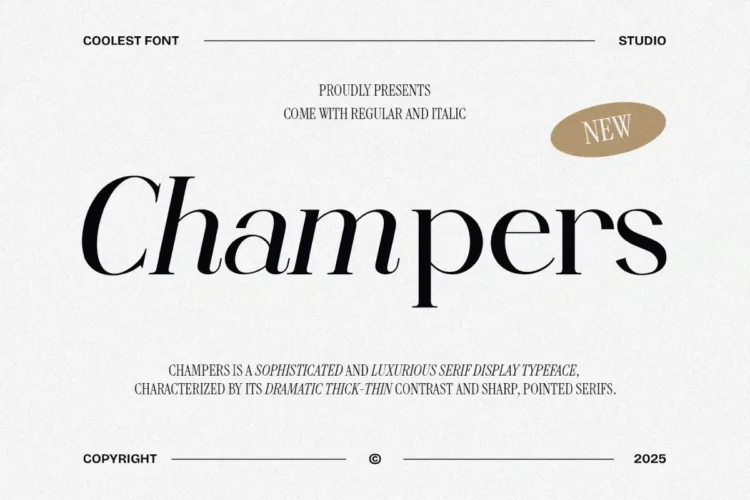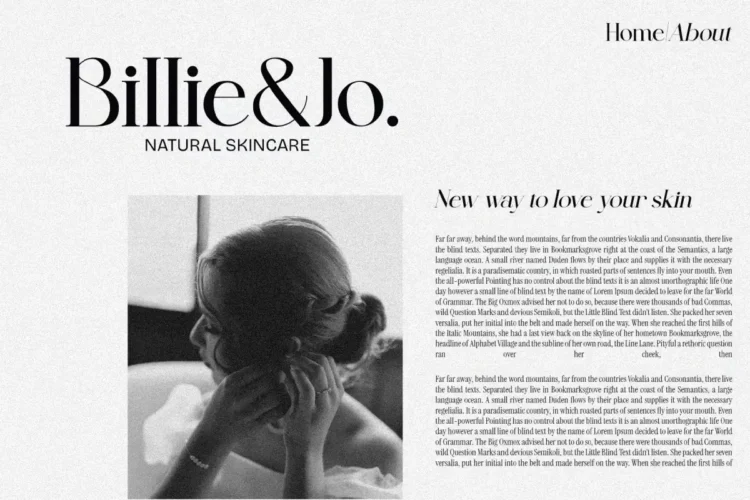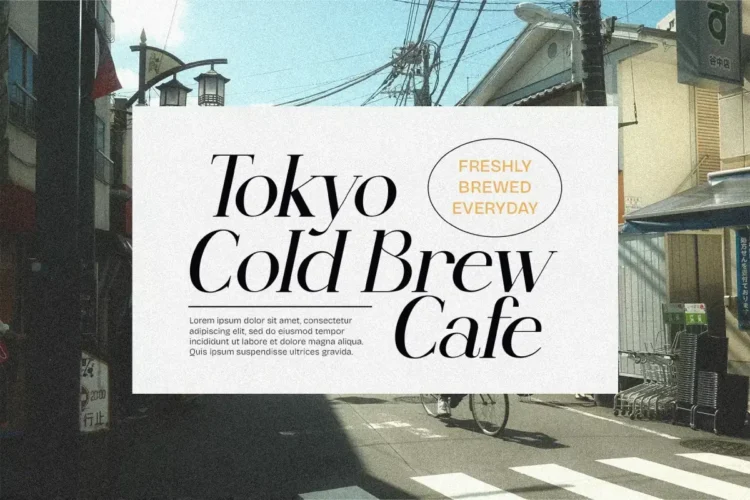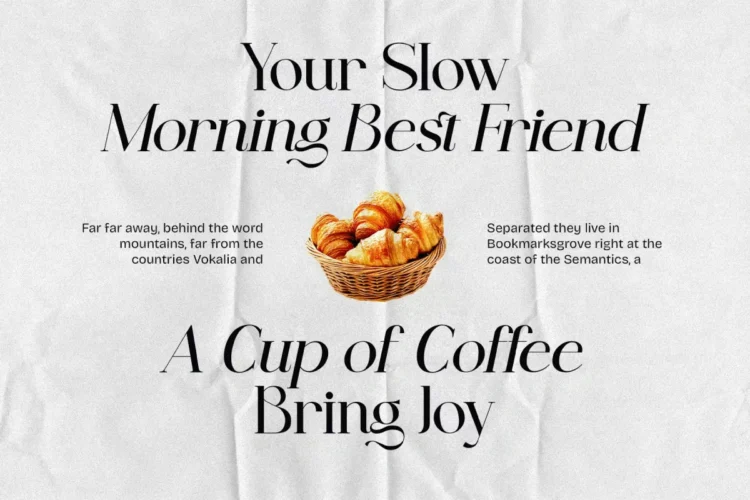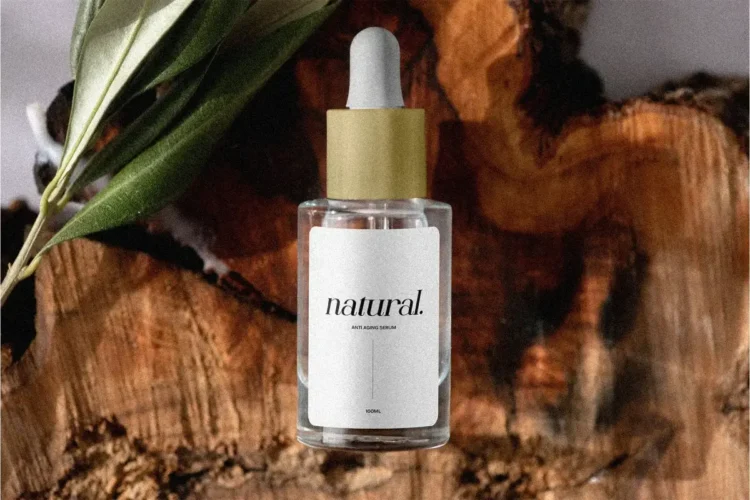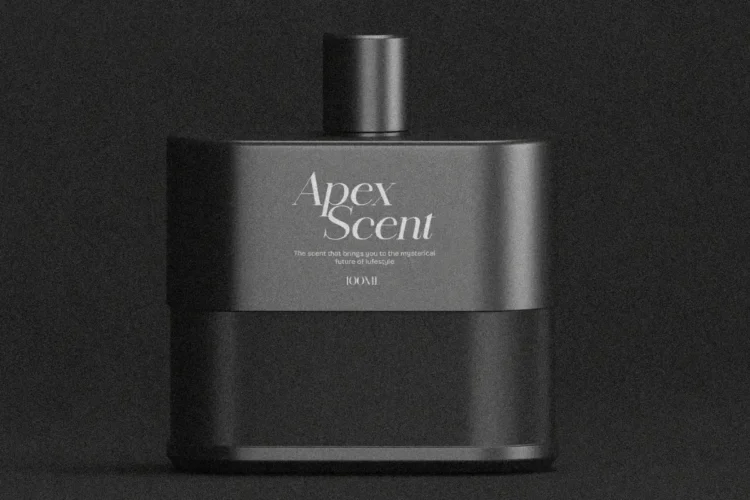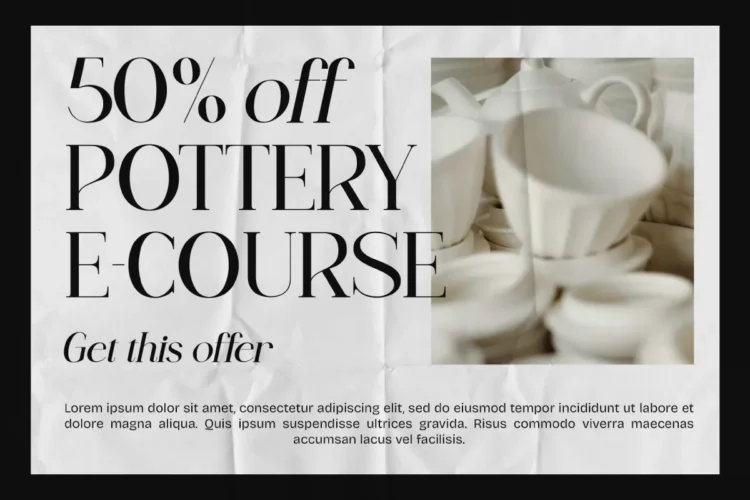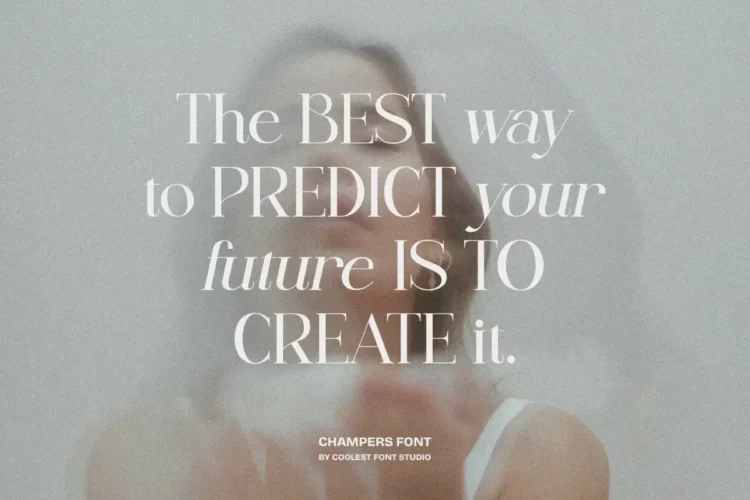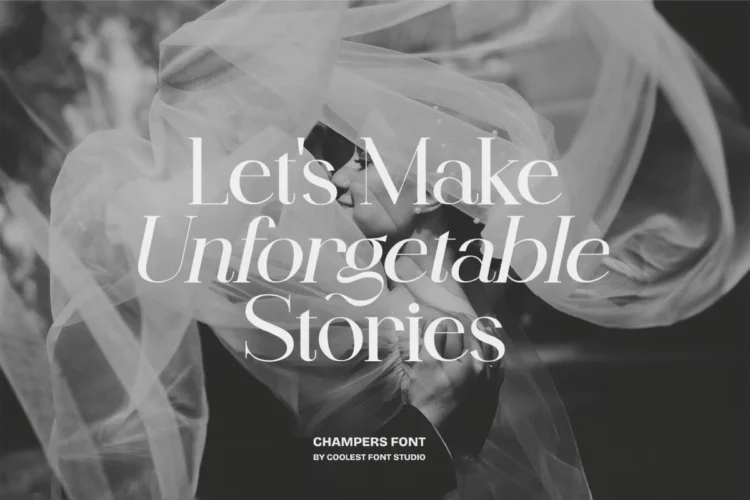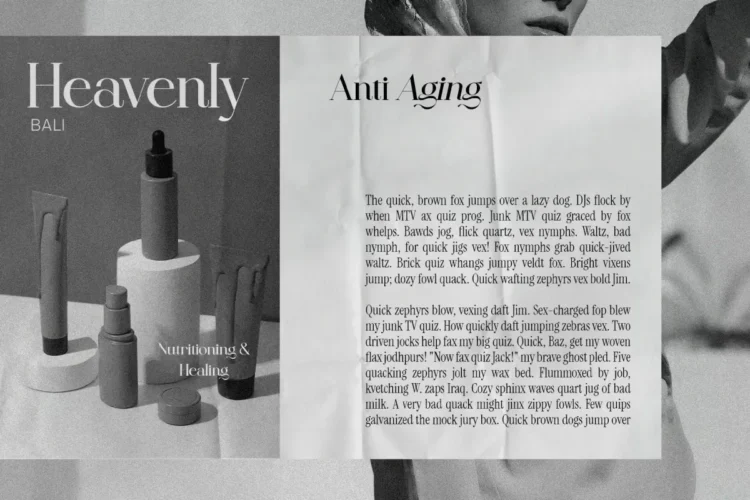
Champers Font – Elegant & Luxury Serif Font for Branding, Cosmetic, and Modern Design
Champers Font is a sophisticated serif font that blends modern refinement with timeless luxury. Designed with dramatic thick–thin contrasts and sharp, pointed serifs, this font exudes elegance, confidence, and artistic flair.
Available in Regular and Italic styles, Champers Font is crafted for designers who seek beauty, professionalism, and versatility in one typeface.
Champers Font Included :
- Alternates
- Ligature
Champers Font is versatile and works beautifully for :
- Branding Font – elevate your brand identity with elegance and class.
- Logo Font – create premium and memorable logo marks.
- Wedding Font – add romance and sophistication to invitations and stationery.
- Cosmetic Font – ideal for skincare, perfume, and fashion packaging.
- Headline Font – make a bold statement with stylish titles.
- Poster Font – enhance your visuals with refined typography.
- Magazine & Cover Font – perfect for luxury editorials and cover designs.
- Aesthetic Font – embrace modern elegance with timeless appeal.
- Packaging & Label Design – for products that need a classy visual tone.
- Social Media & Website Headers – ensure your designs look premium and eye-catching.
Champers Font Features:
- Comes with Regular and Italic styles.
- High contrast strokes with graceful curves and refined details.
- Perfect readability for both print and digital layouts.
- Ideal for luxury branding, editorial design, and modern minimalist concepts.
Champers combines modern aesthetics and classical serif structure to produce an unforgettable typeface for every designer who values elegance, luxury, and personality. It’s not just a font it’s a design statement.